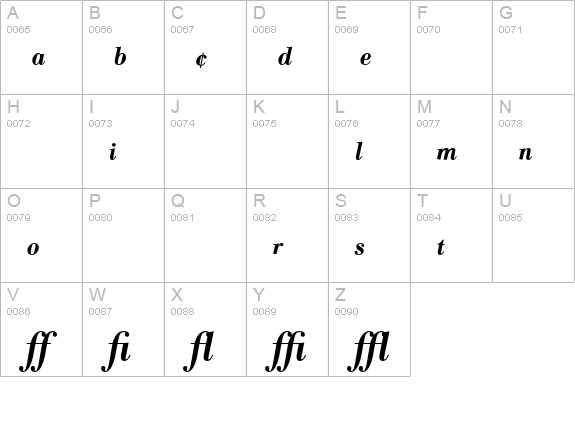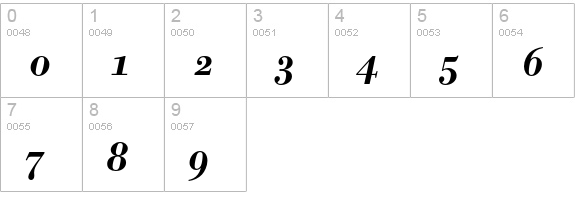
Bodoni BE Medium Italic Expert is a balanced, medium-weight, italic variant in the Bodoni typeface family \xE2\x80\x94 well suited to sub-headlines, navigation, and balanced editorial work.
Bodoni BE Medium Italic Expert font is a stunning typeface that exudes elegance and sophistication. With its sleek and modern design, this font is perfect for adding a touch of refinement to any project. The italic styling adds a sense of flair and dynamism, making it ideal for creating eye-catching headings or emphasizing important text. What sets Bodoni BE Medium Italic Expert font apart is its exquisite details and expert craftsmanship. The precise curves and delicate serifs give this font a timeless quality that is sure to make a lasting impression. Whether you are designing a wedding invitation, a luxury brand logo, or an editorial layout, this font will elevate your work to new heights. The best part is that Bodoni BE Medium Italic Expert font is available for free download at FontsMarket.com. This means that you can easily access this high-quality font and use it in your projects without any cost. Don't miss out on the opportunity to enhance your designs with the beauty and sophistication of Bodoni BE Medium Italic Expert font. Download it today and see the difference it can make!